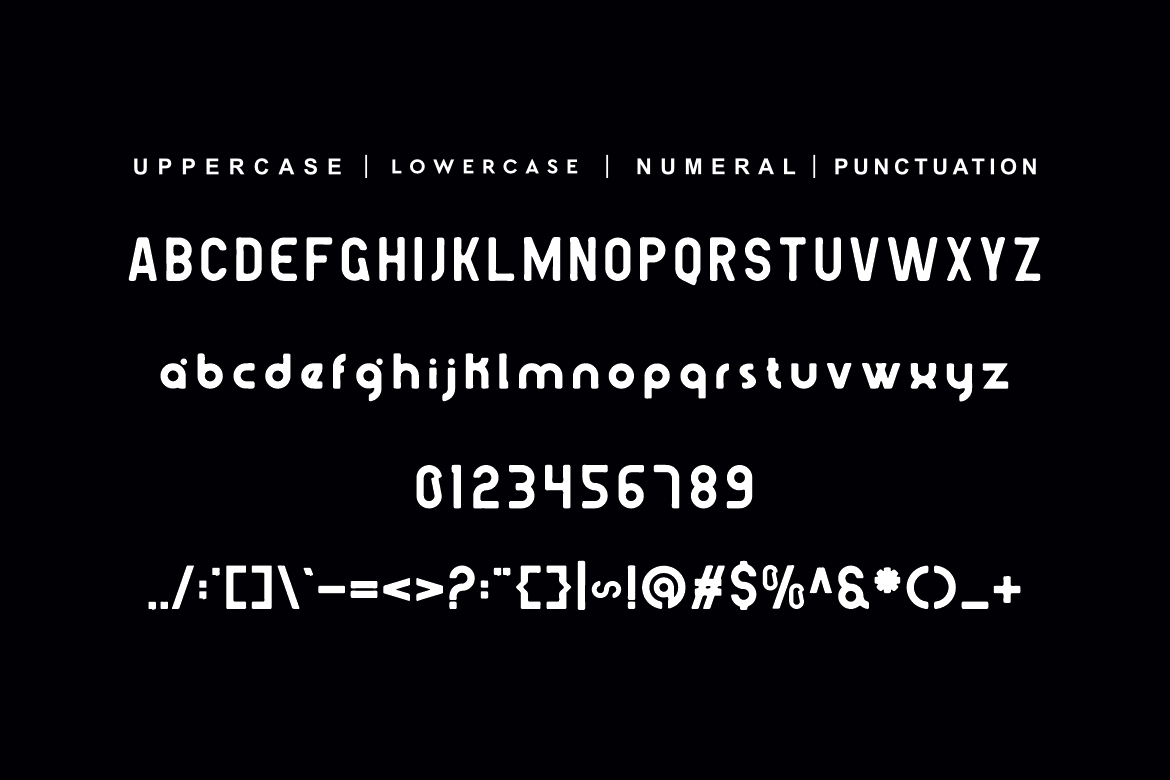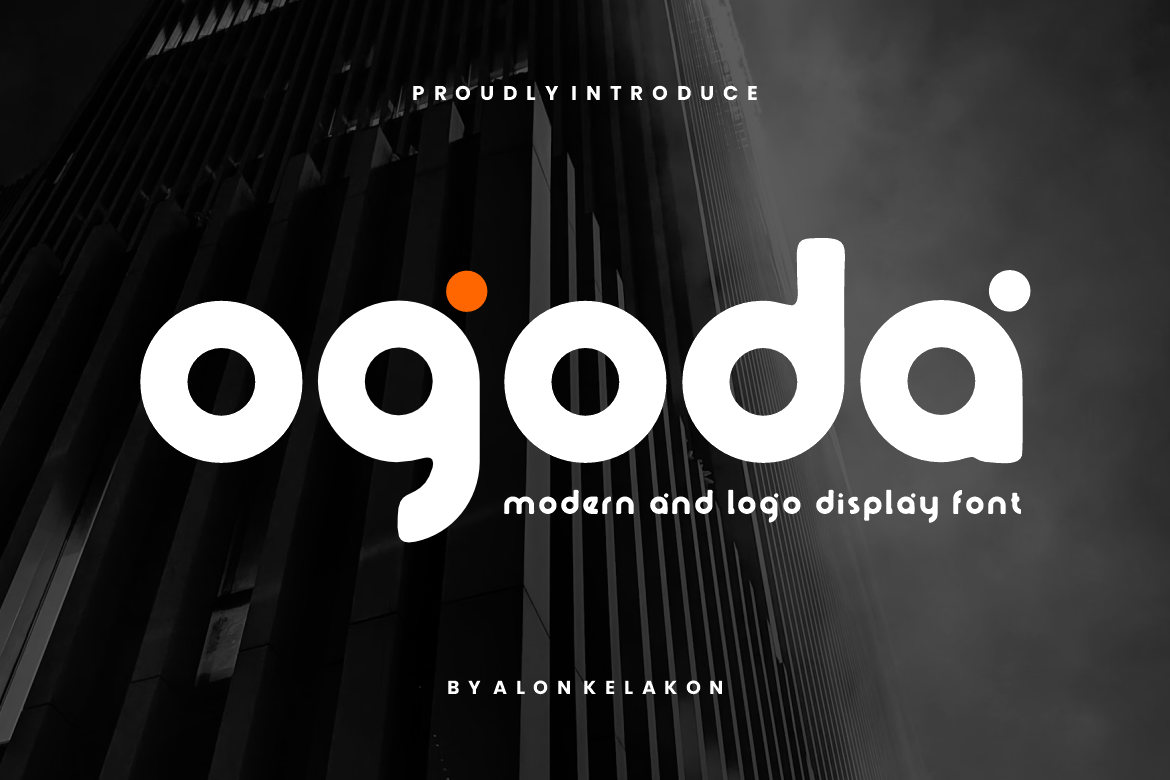
Ogoda Logo Font
Ogoda Logo Font Font is unique . Ready to use for your design like labeling, movie sceen, poster, movie title, gigs, album covers, logos, and much more.